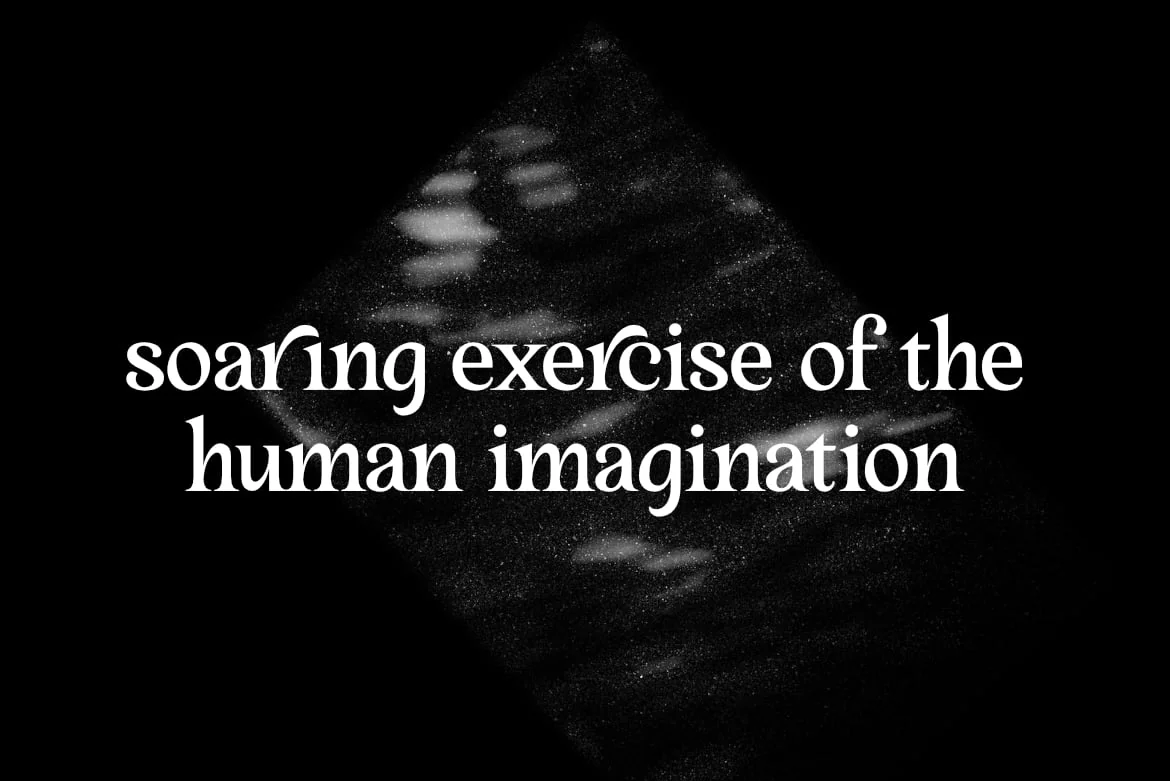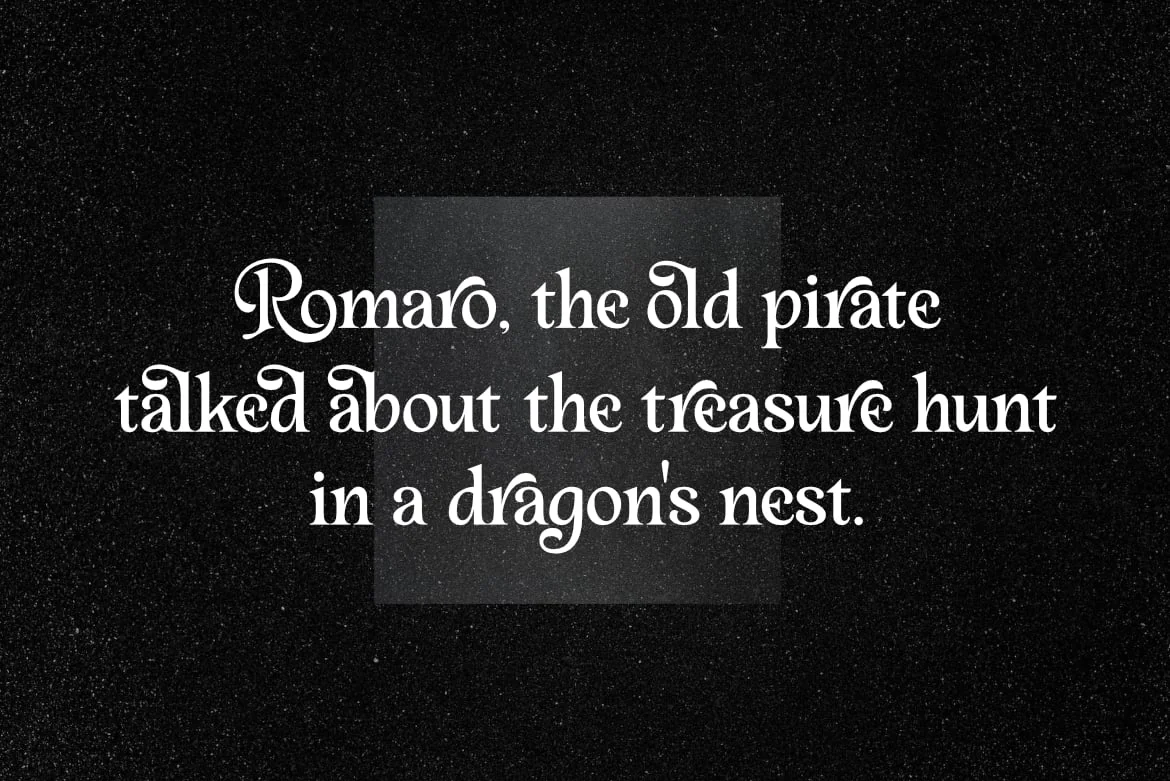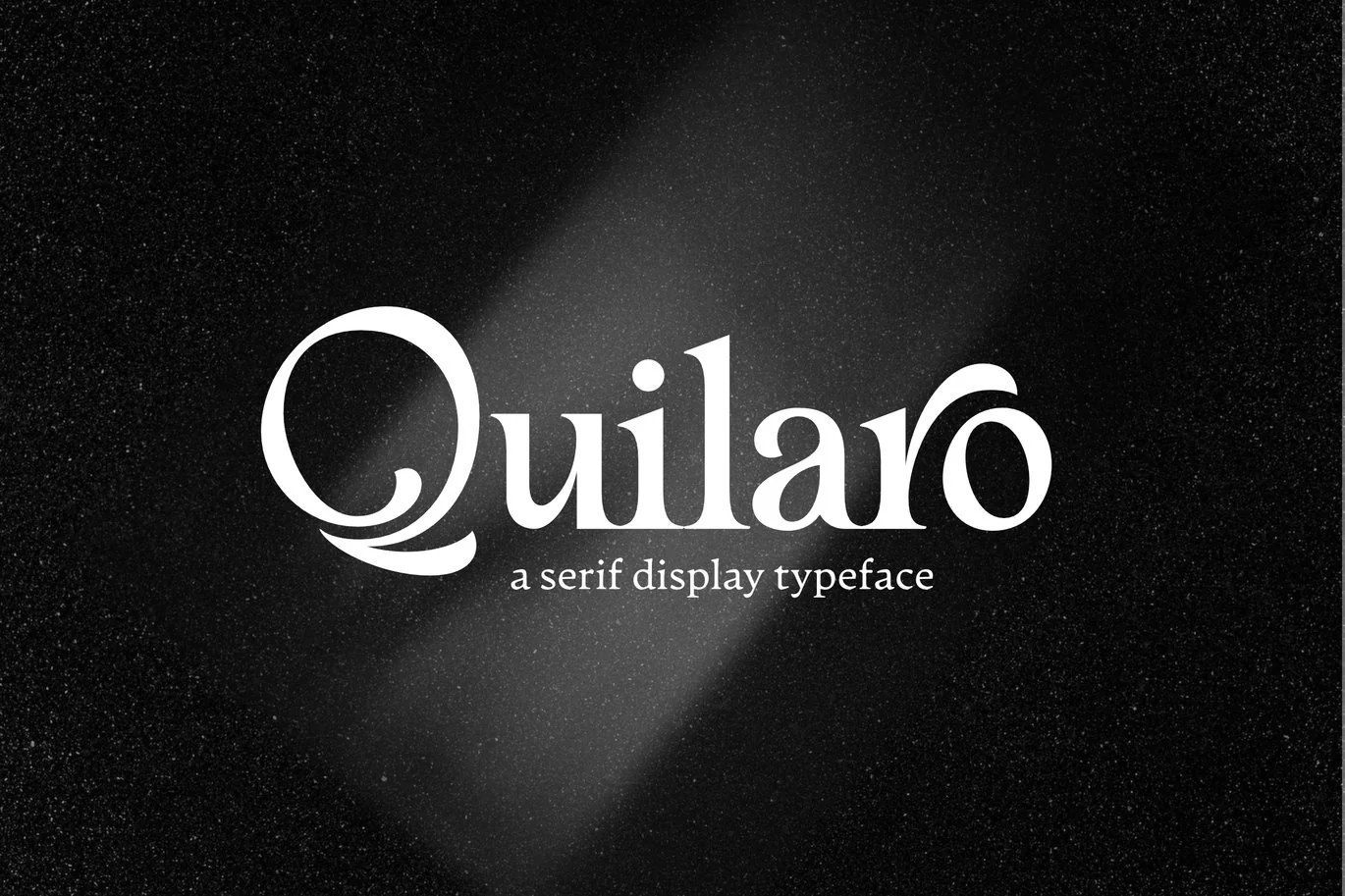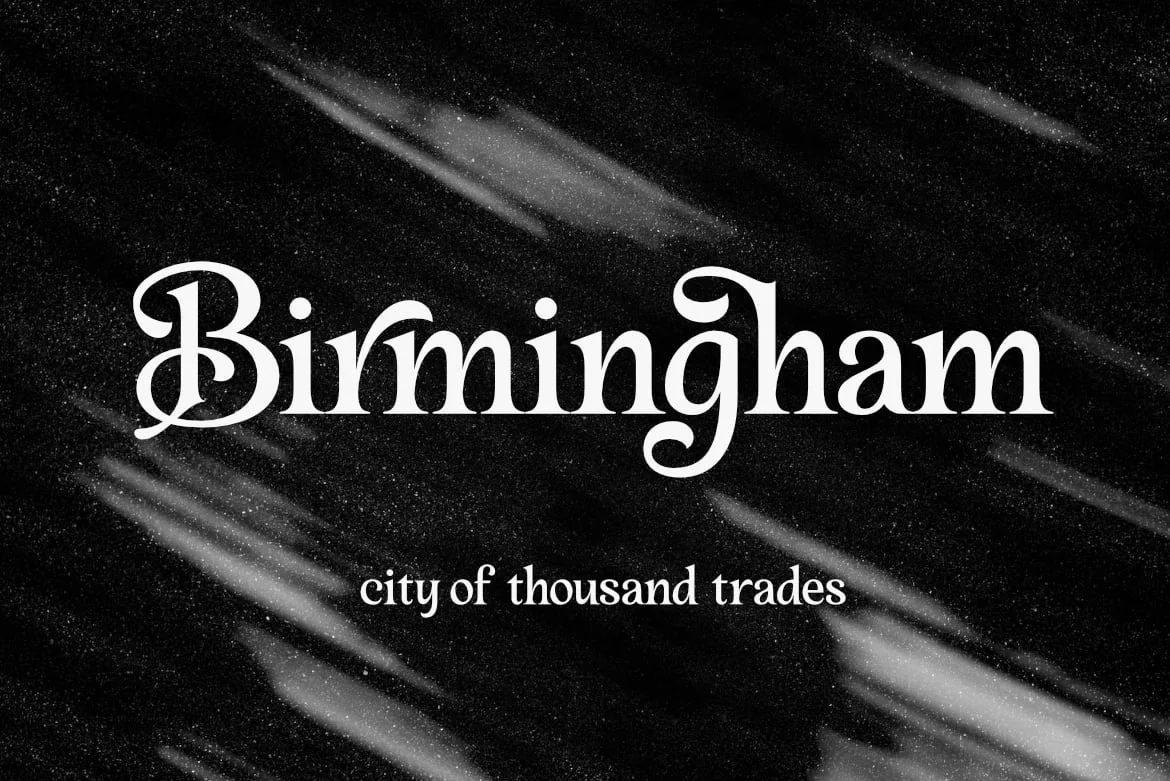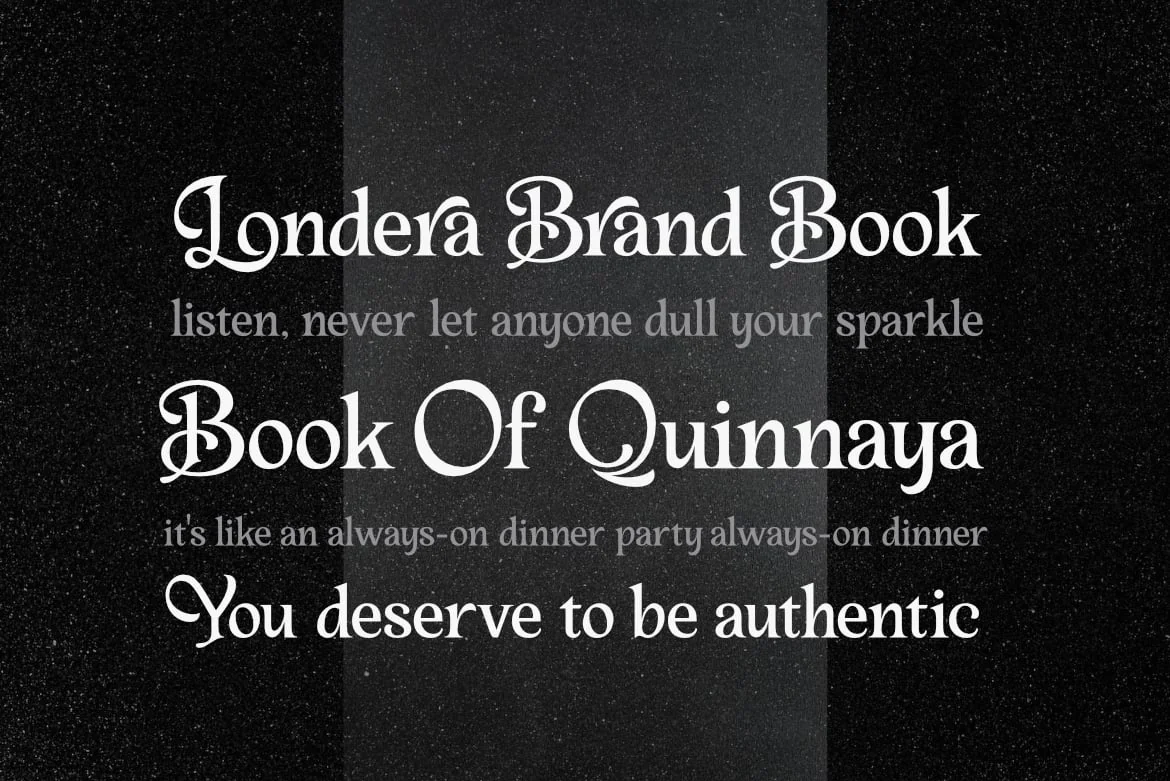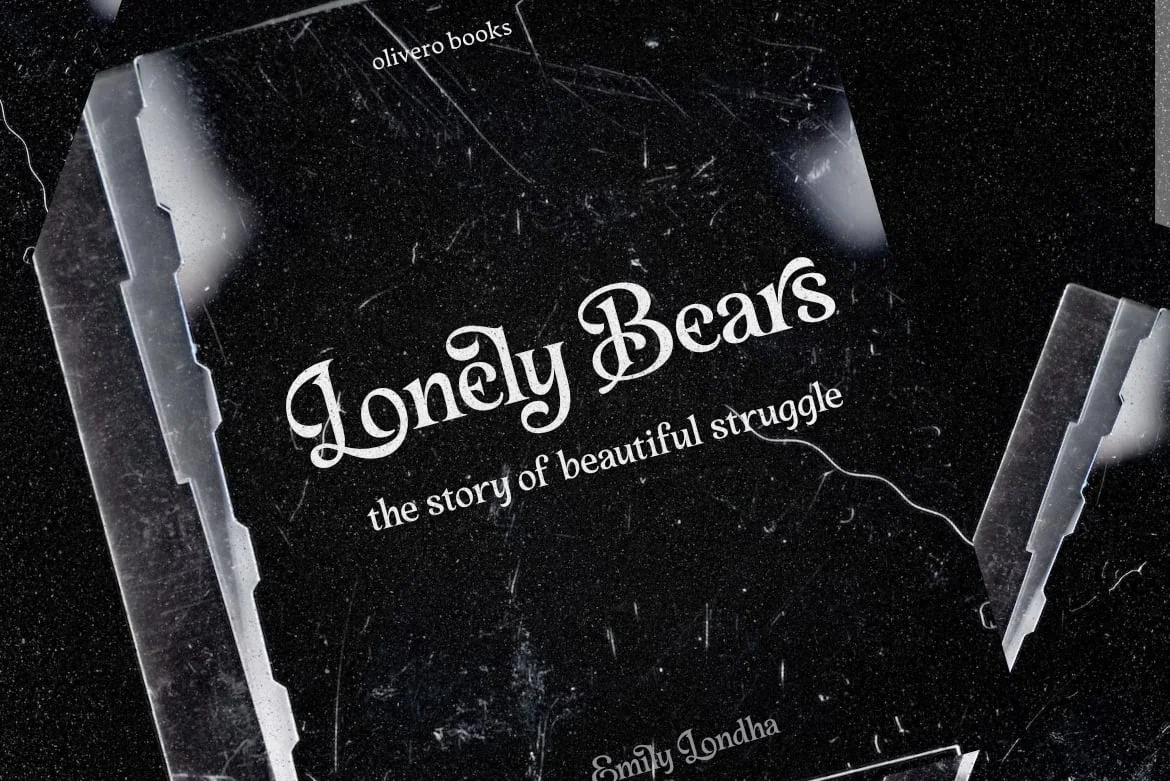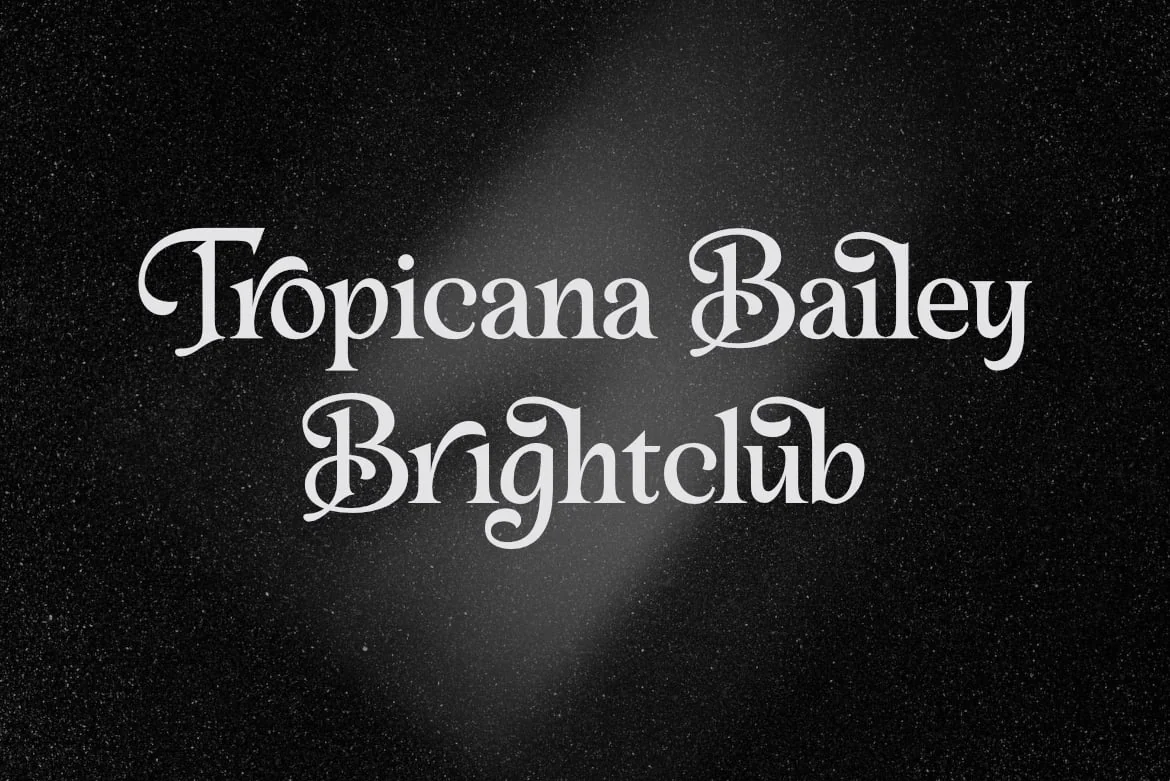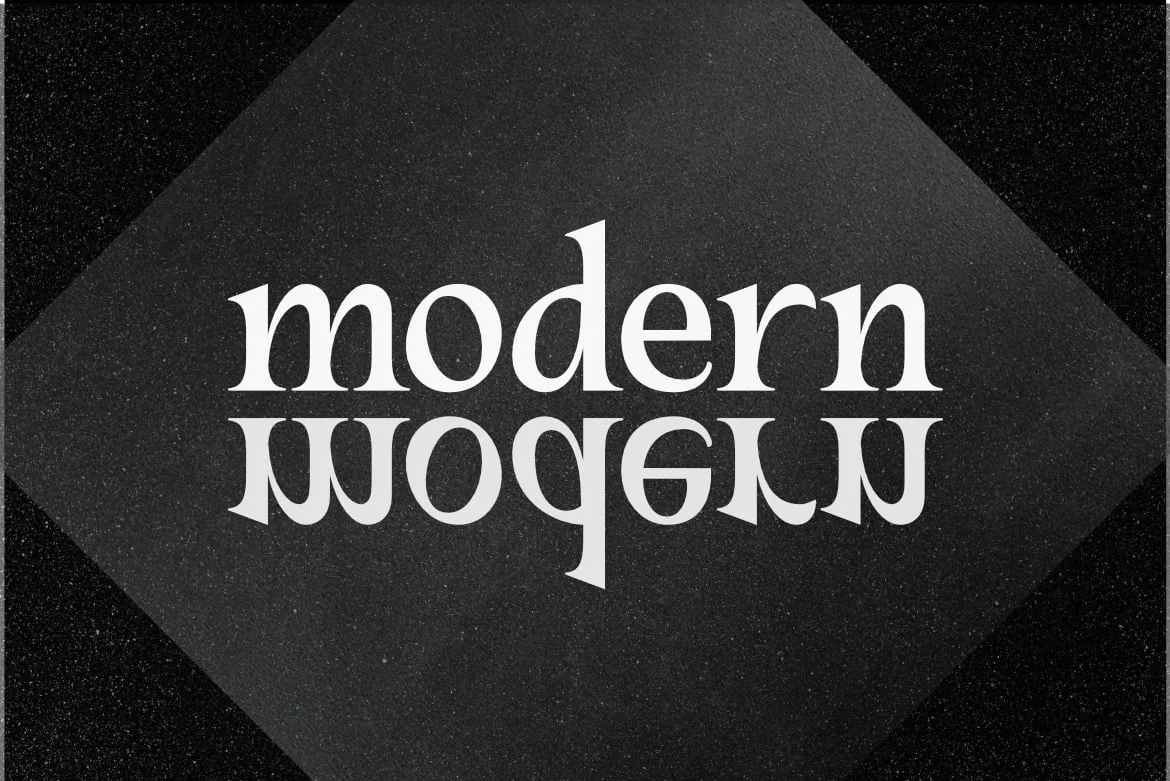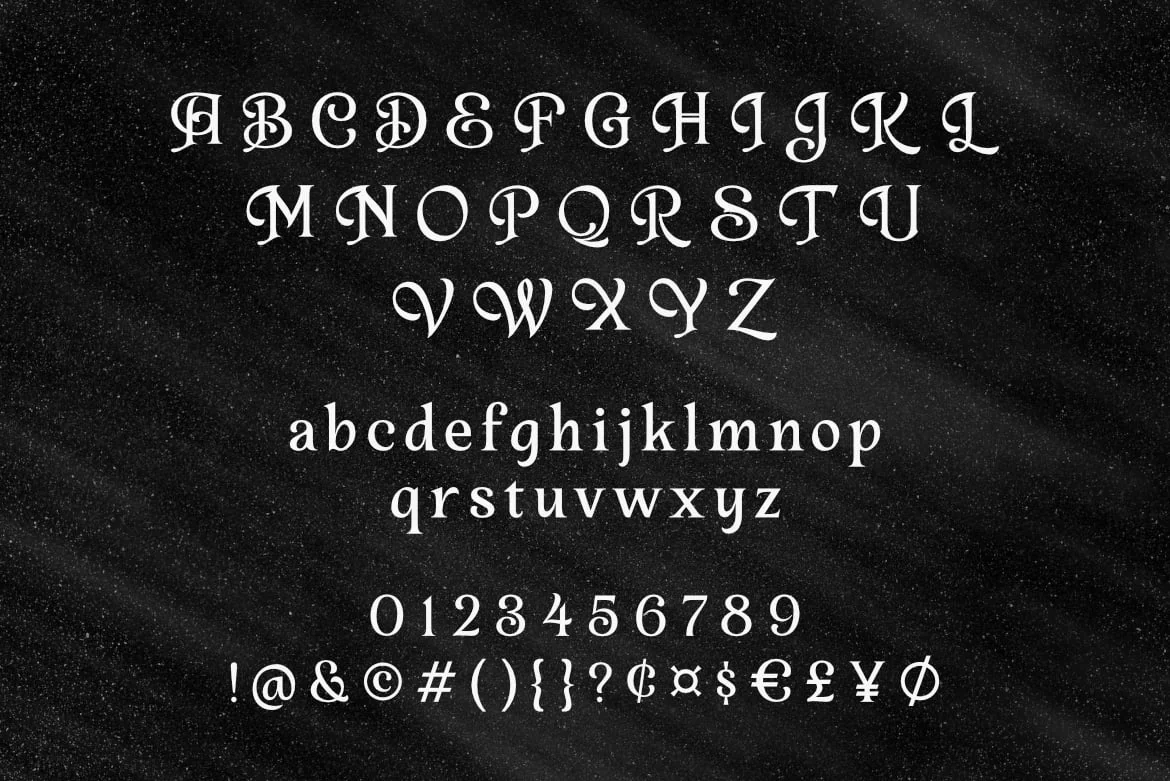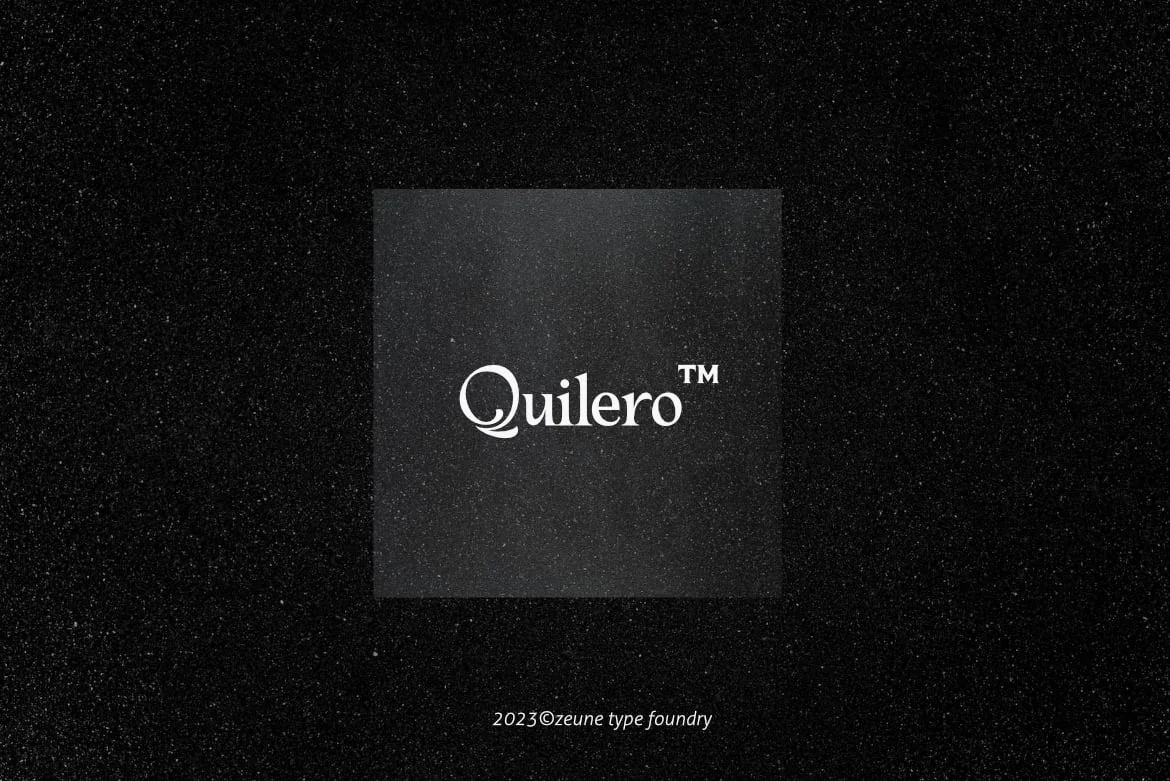
Quilaro | a Classic and Elegant Serif Font
Quilaro is a new serif font with a classic, elegant design. It is characterized by its smooth curves, delicate serifs, and well-balanced proportions. Quilaro is a versatile font that can be used for a variety of purposes, including print, web, and digital applications.
Quilaro includes a number of OpenType features that allow for greater typographic control such as Ligatures that combine two or more letters into a single glyph. This can help to improve the readability of text, especially in small sizes. There are also Stylistic alternates that can be used to add a variety of characters to text. For example, Quilaro includes a number of alternate lowercase letters that can be used to create a more decorative look.
Quilaro is a versatile font that can be used for various purposes. It would be a good choice for print projects such as books, magazines, and corporate reports. It would also be a good choice for web and digital applications such as websites, e-books, and mobile apps.